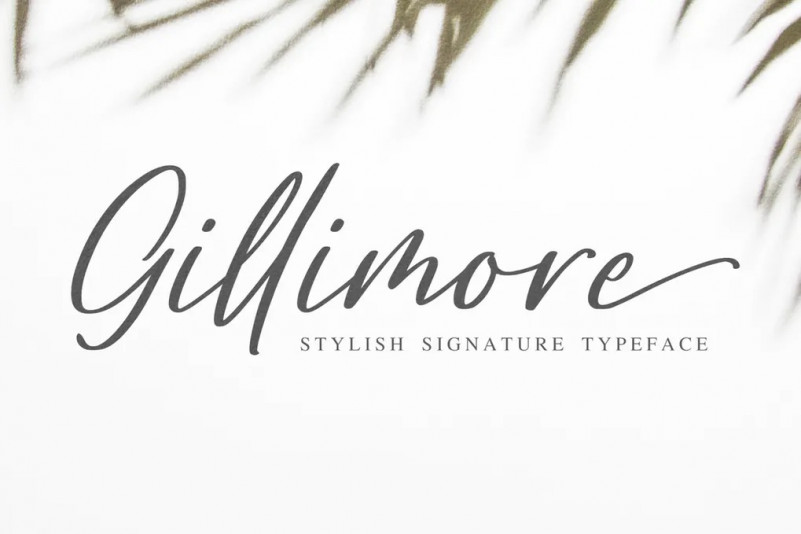
Gillimore Font
Gillimore is a stylish handwritten font that built from an elegant yet natural signature typographic design. A modern calligraphy with a dancing baseline bring you the perfect font of all sorts of projects ; Logotypes, Quotes, Signature, T-shirts, Wedding invitations, Greeting cards, Book covers and many more.